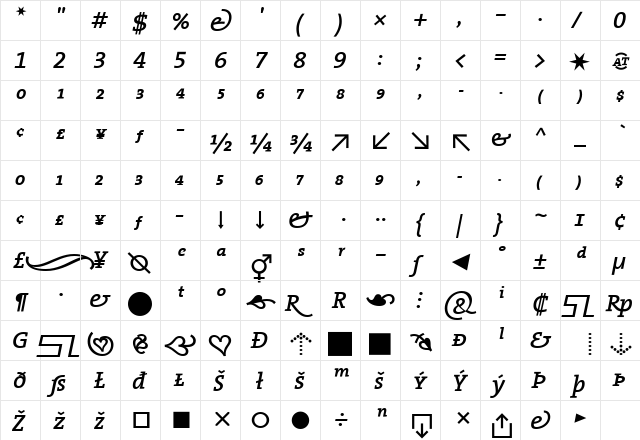
TheSerif SemiBold Italic
Design Context for TheSerif Typeface
TheSerif brings classic typographic sensibility to the table — its serifs and measured letterforms reflect centuries of print heritage. The dynamic lean of this cut emphasises speed and emphasis in any layout. Its bold stroke weight gives it real presence on the page.
Pro Tip: Use TheSerif for editorial body copy and considered headline work. Pair with a neutral sans for UI elements or captions to create a classic hierarchy.